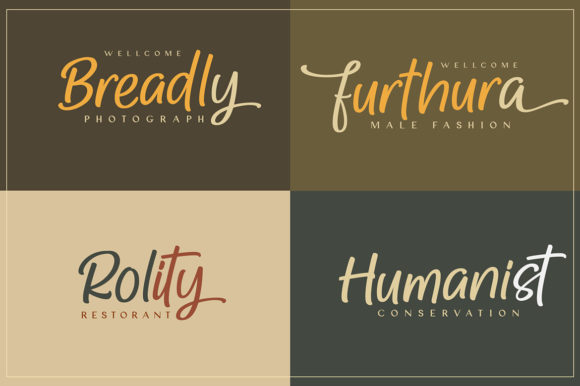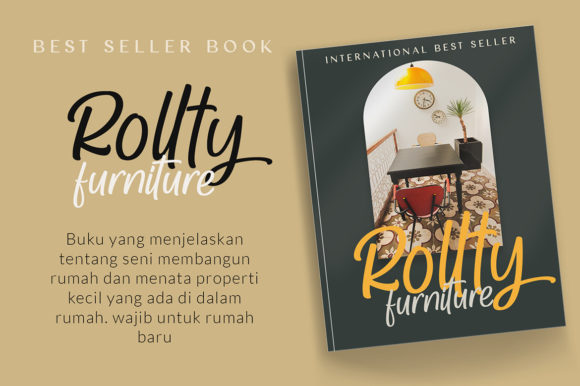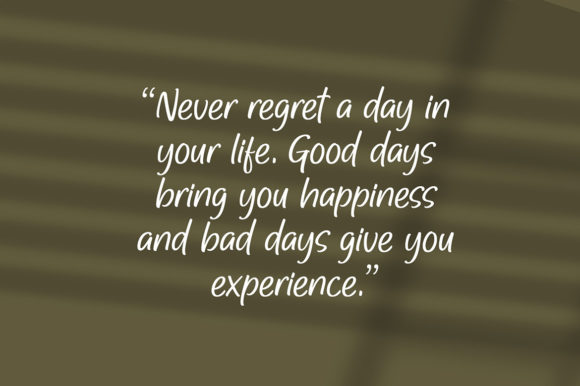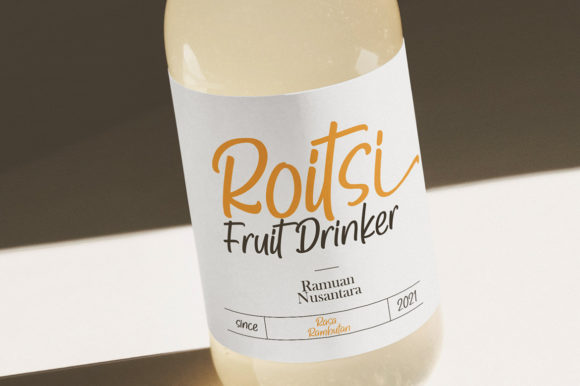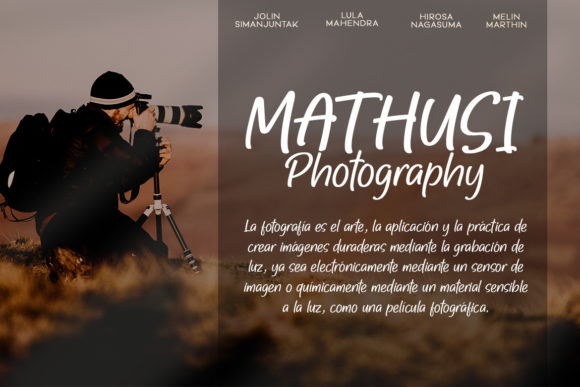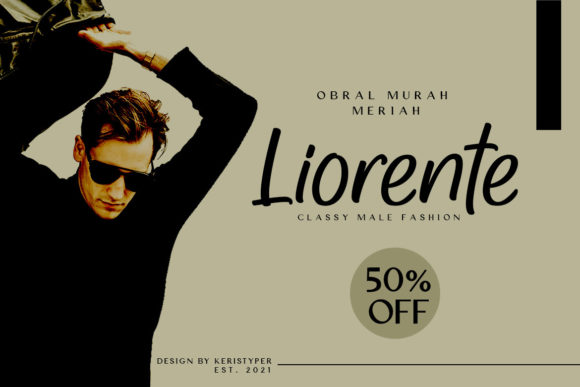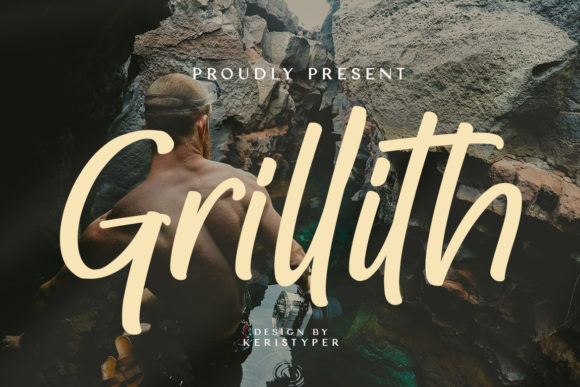
Introducing Grillith Font: A Splendid Handwritten Font for Your Creative Projects
In the world of typography, a font can make or break the visual appeal of a design project. For designers, crafters, and creative enthusiasts, finding the perfect font that combines elegance, uniqueness, and versatility can be a daunting task. However, we are excited to introduce Grillith Font, a splendid handwritten font that is sure to elevate your design game. In this article, we’ll dive into the features, benefits, and uses of Grillith Font, and explore why it’s a must-have for your font collection.
What is Grillith Font?
Grillith Font is a beautifully crafted handwritten font that boasts a unique combination of features, making each character look remarkably real. Created with attention to detail and a passion for typography, Grillith Font is designed to meet the needs of designers, crafters, and creative professionals who seek a font that can add a personal touch to their projects.
Key Features of Grillith Font
- Unique and Handwritten: Grillith Font is a handwritten font that exudes a sense of personality and warmth, making it perfect for projects that require a personal touch.
- Realistic Characters: Each character in Grillith Font is crafted to look remarkably real, adding a level of authenticity to your designs.
- Versatile: Grillith Font can be used in a wide range of projects, from branding and advertising to crafting and DIY tutorials.
- Easily Readable: Despite its handwritten nature, Grillith Font is surprisingly easy to read, making it suitable for body text and headings.
Benefits of Using Grillith Font
So, why should you choose Grillith Font for your design projects? Here are just a few benefits of using this splendid handwritten font:
- Adds a Personal Touch: Grillith Font can add a personal touch to your designs, setting them apart from generic, overused fonts.
- Enhances Creativity: With Grillith Font, you can unleash your creativity and experiment with different design styles and concepts.
- Saves Time: The versatility of Grillith Font means you can use it across multiple projects, saving you time and effort in the long run.
- High-Quality: Grillith Font is crafted with high-quality characters, ensuring that your designs look professional and polished.
Using Grillith Font in Your Projects
Grillith Font is an incredibly versatile font that can be used in a wide range of projects, including:
- Branding and Logo Design: Use Grillith Font to create a unique and memorable brand identity.
- Advertising and Marketing: Add a personal touch to your ads and marketing materials with Grillith Font.
- Crafting and DIY Tutorials: Use Grillith Font to add a creative and handmade touch to your crafting and DIY tutorials.
- Social Media Graphics: Elevate your social media graphics with the elegance and uniqueness of Grillith Font.
| Font Name | Grillith Font |
| Author | Keristyper |
In conclusion, Grillith Font is a splendid handwritten font that offers a unique combination of features, versatility, and high-quality characters. Whether you’re a designer, crafter, or creative enthusiast, Grillith Font is a must-have for your font collection. With its ease of use, readability, and creative possibilities, Grillith Font is sure to elevate your design game and inspire your next creative project.